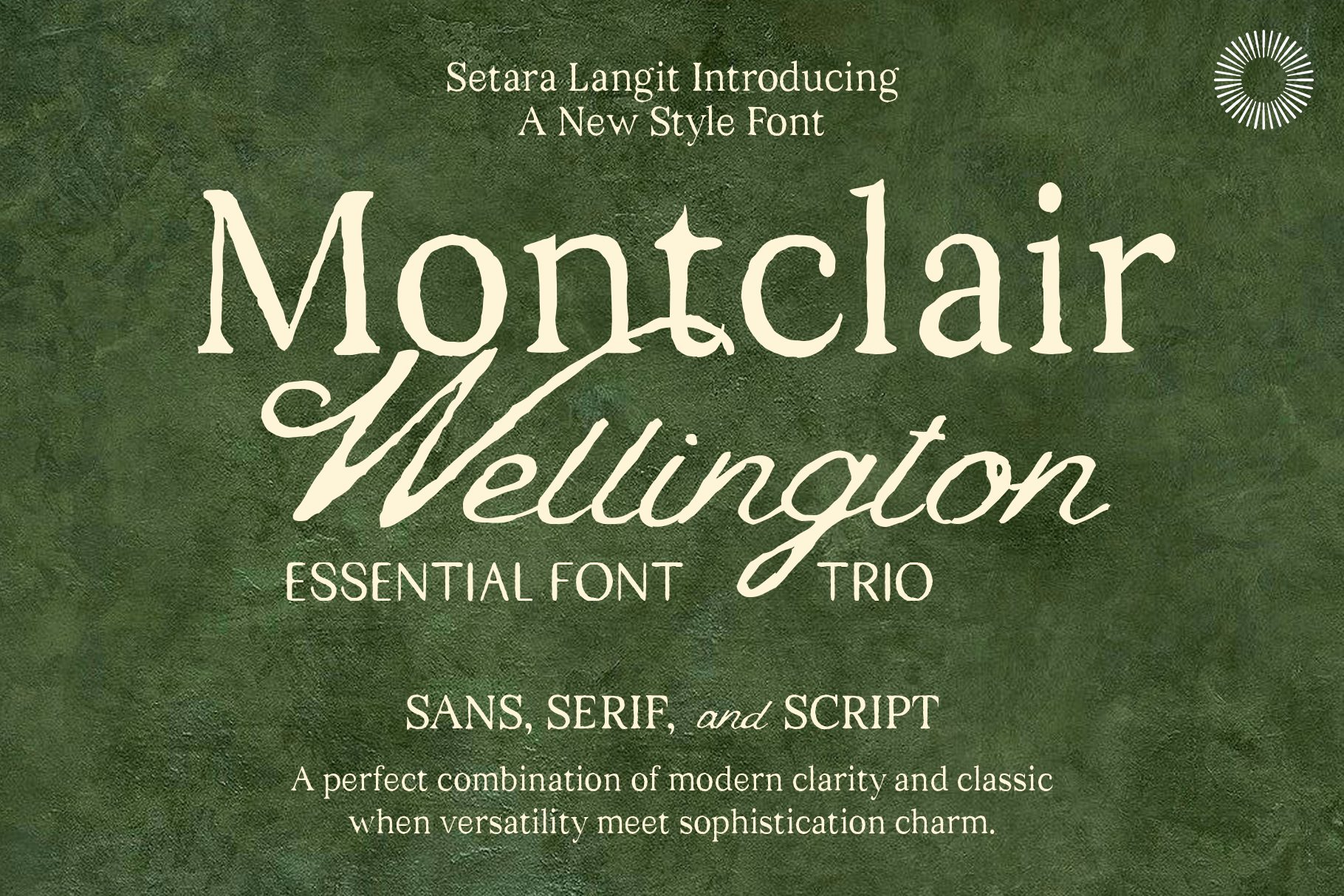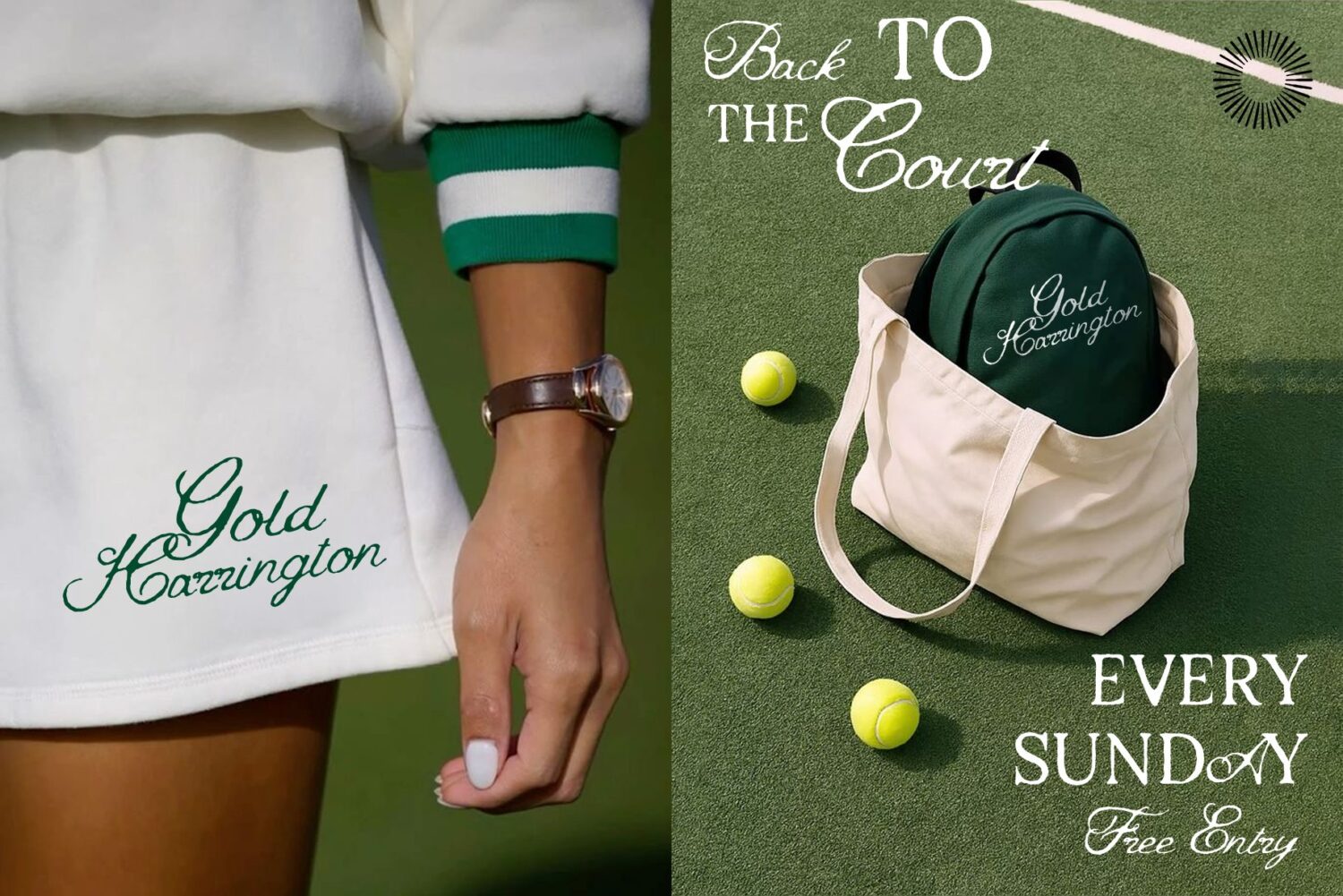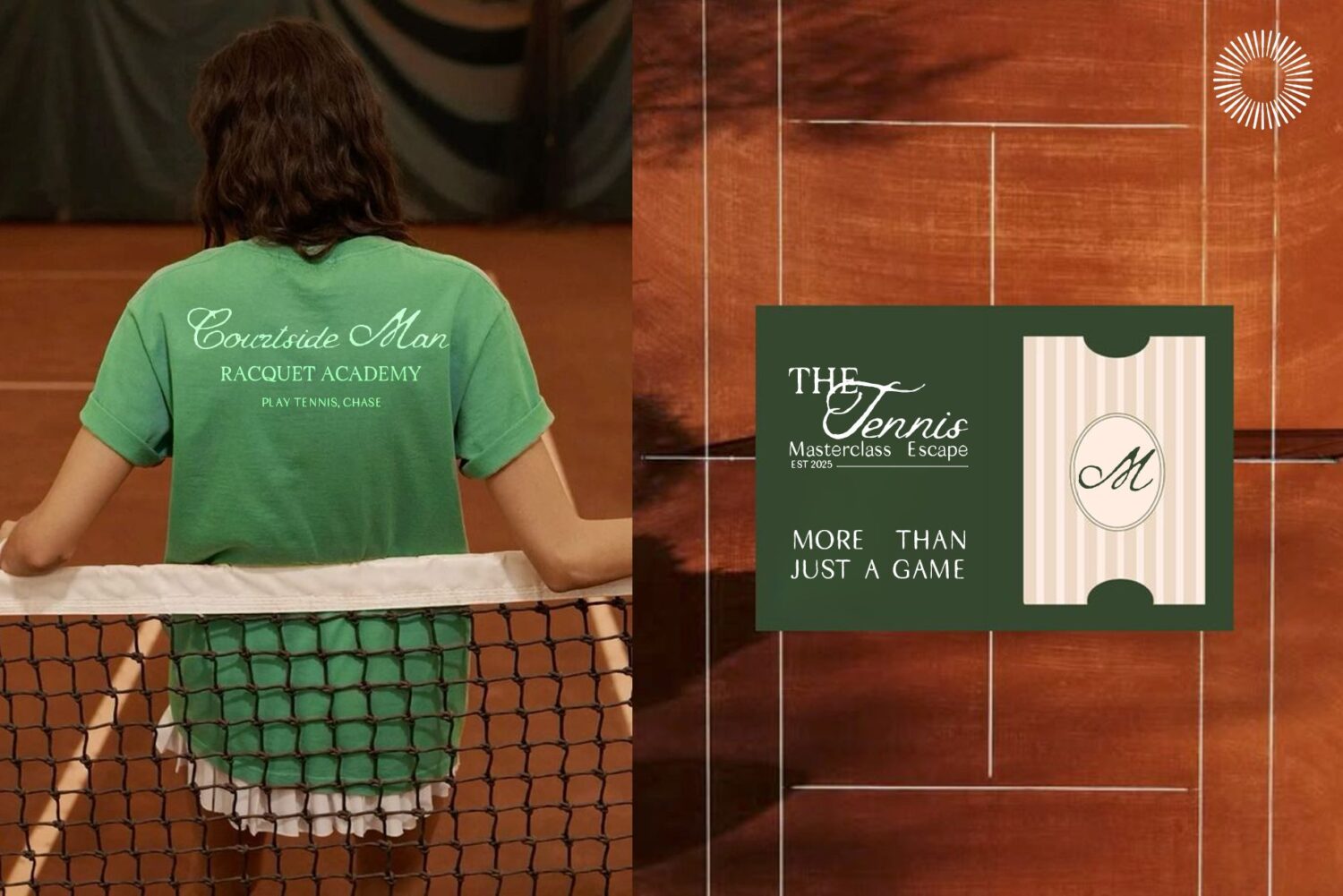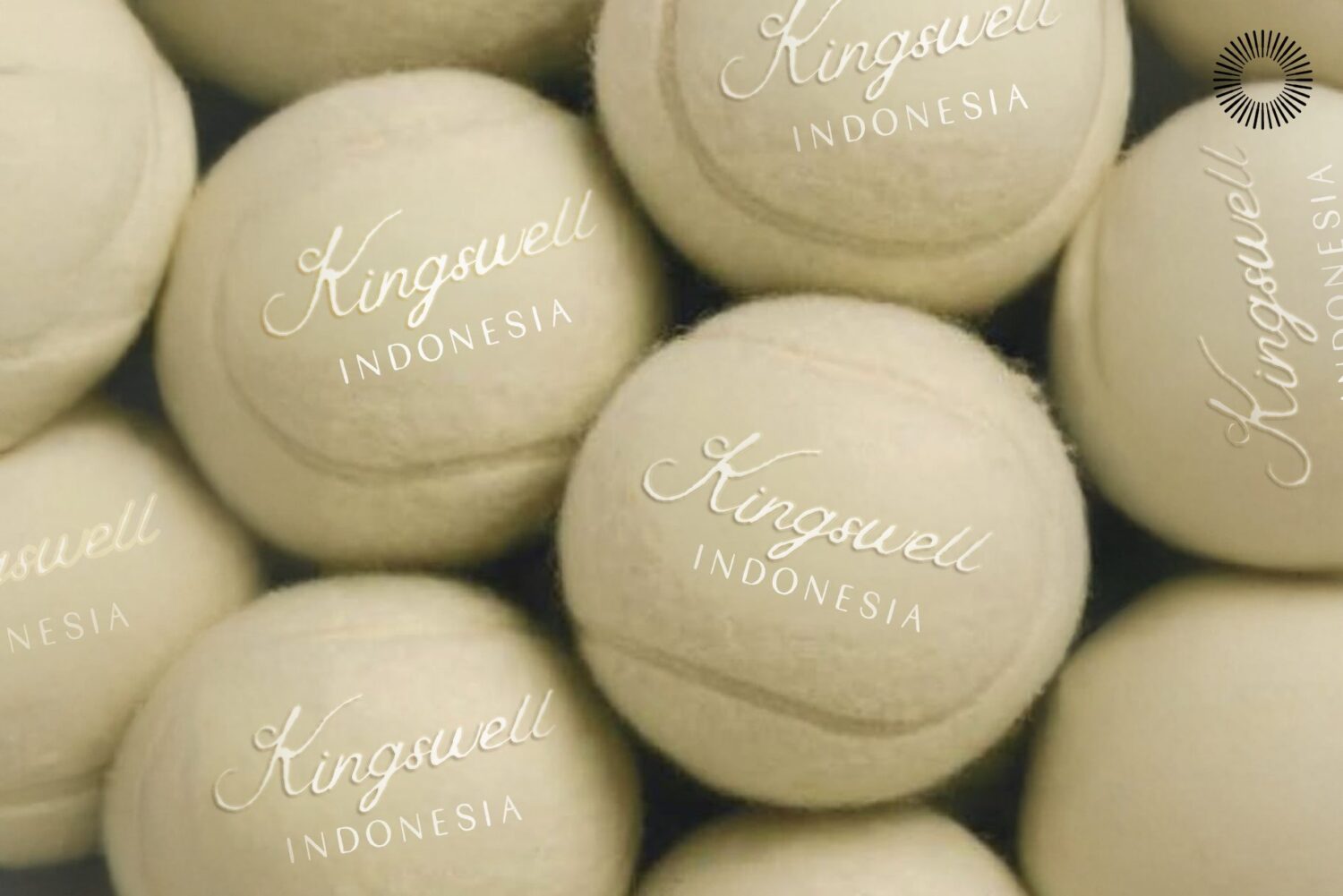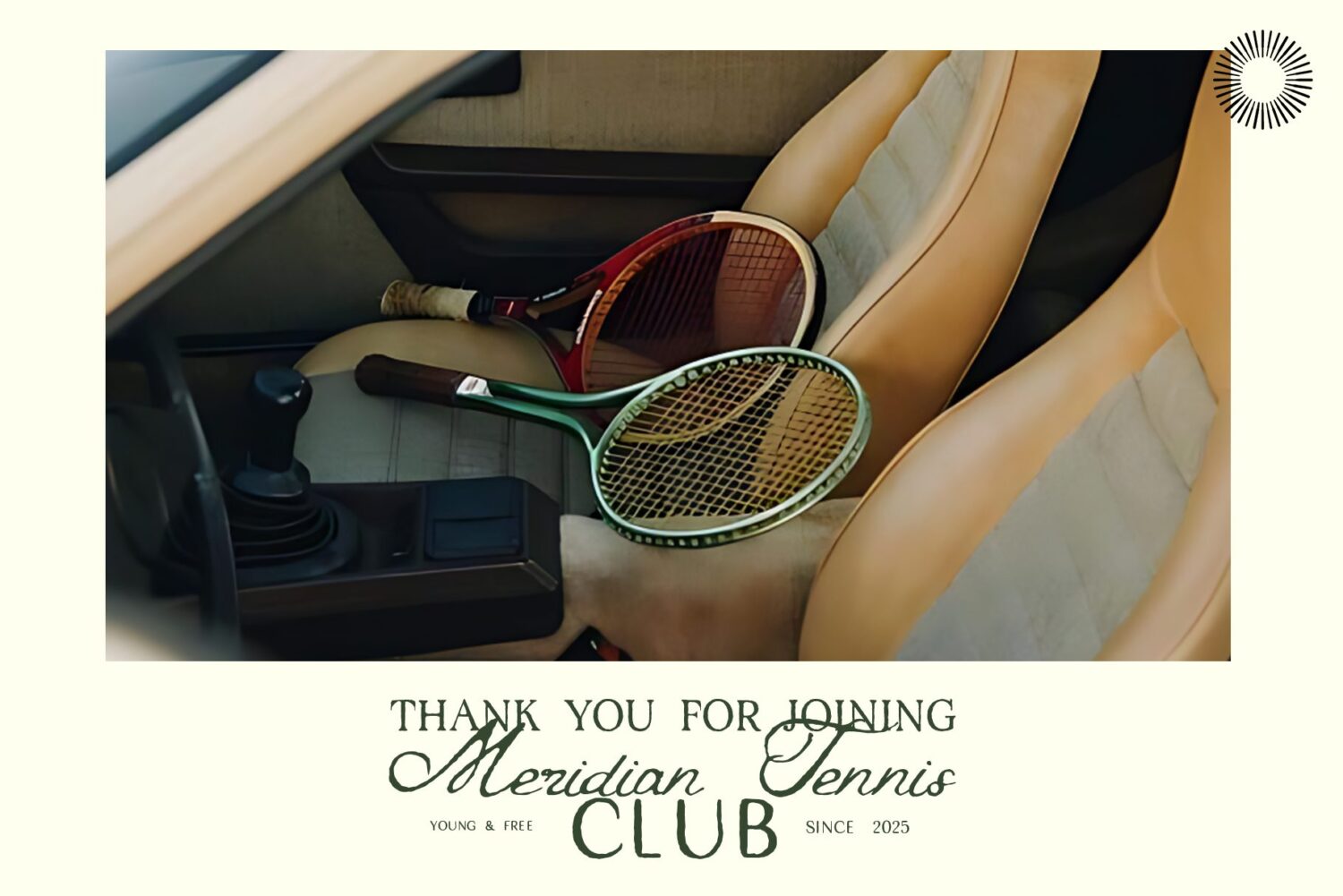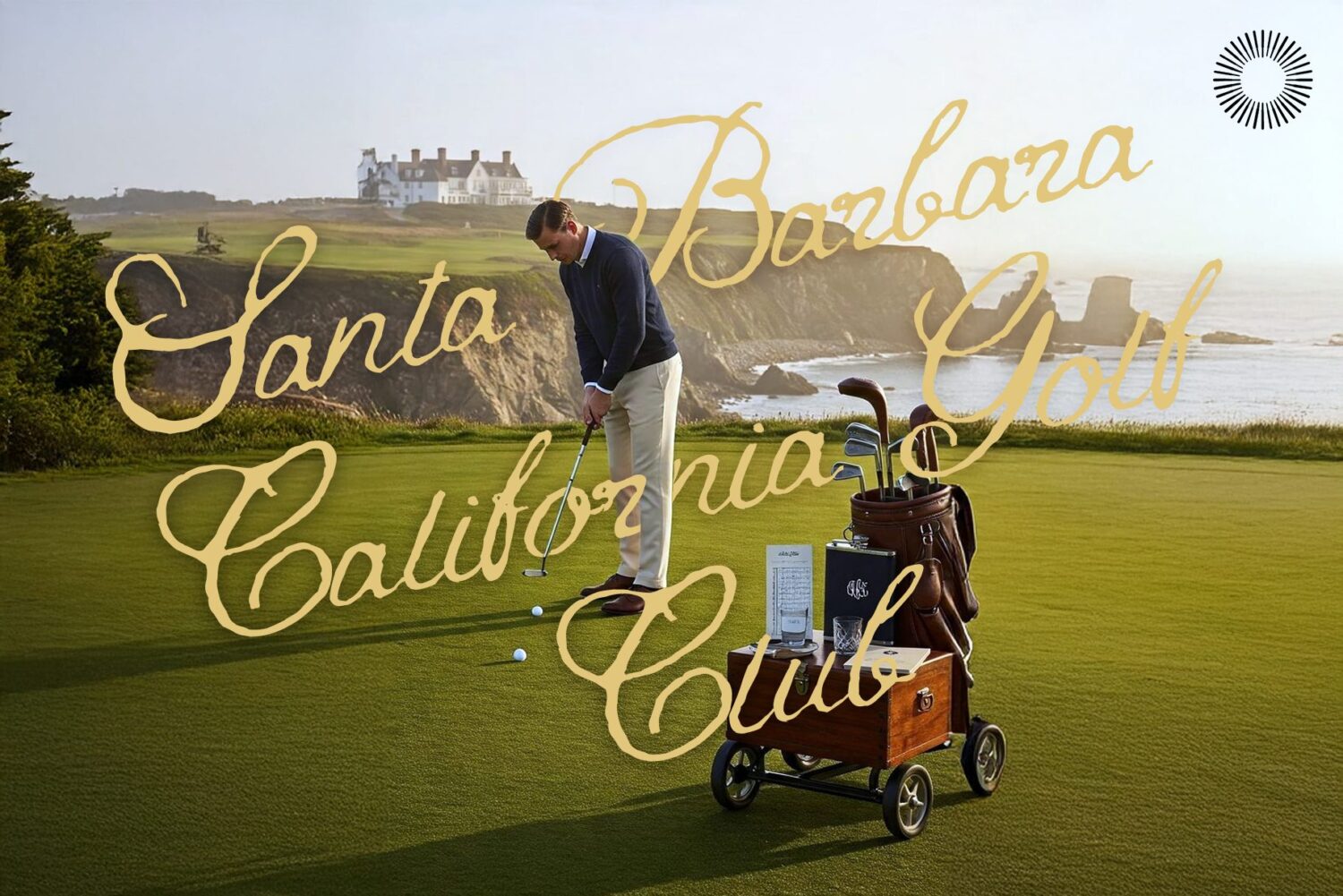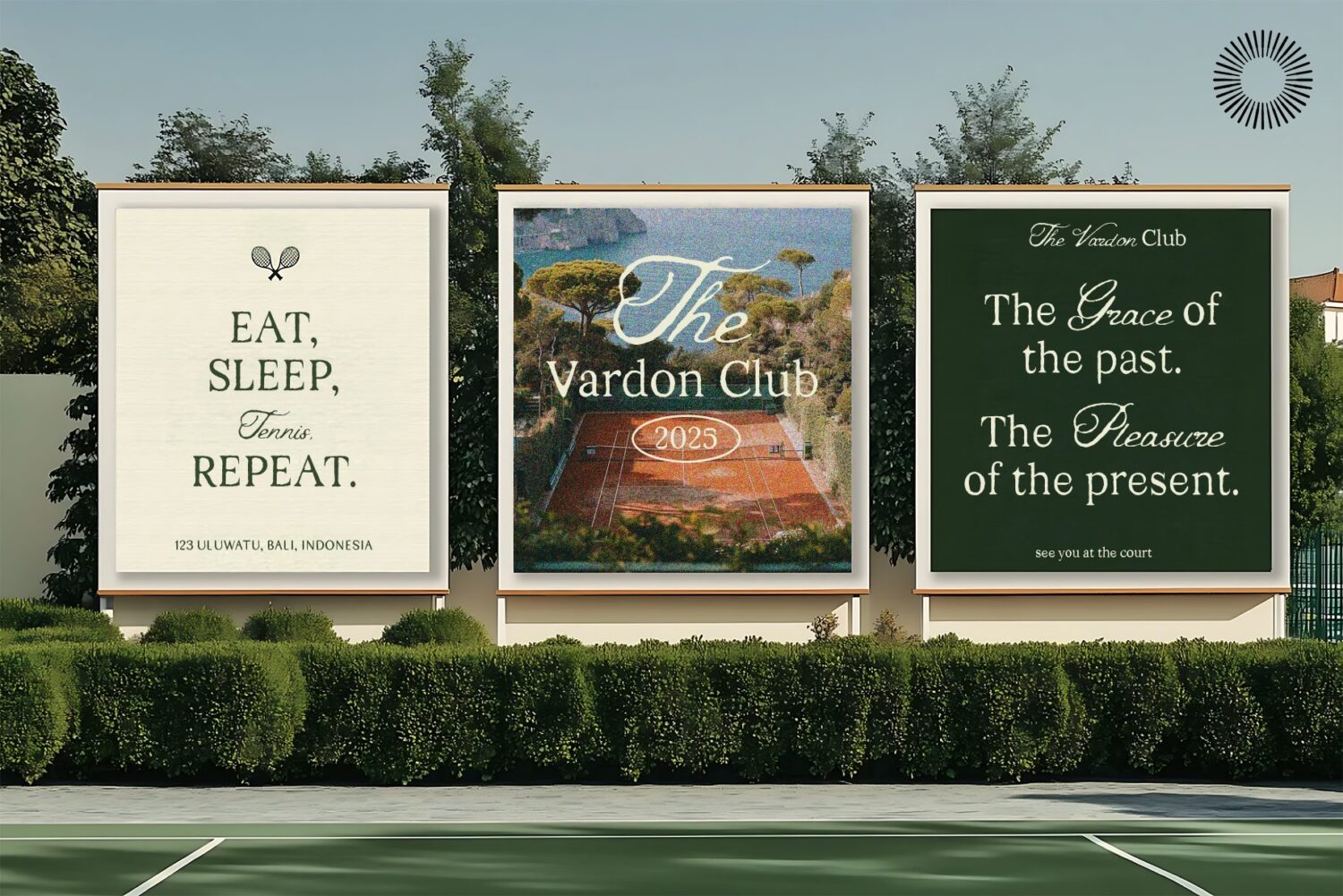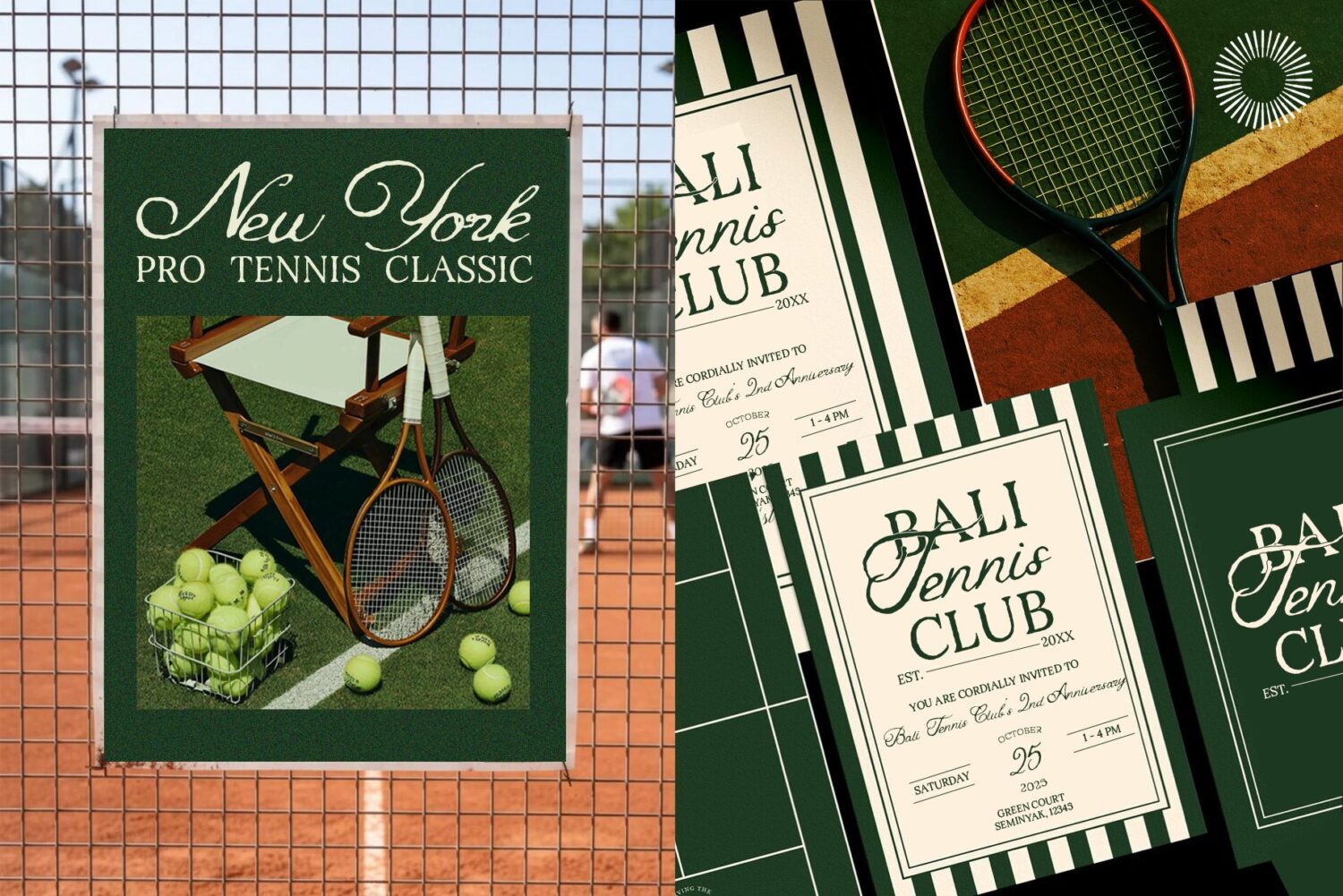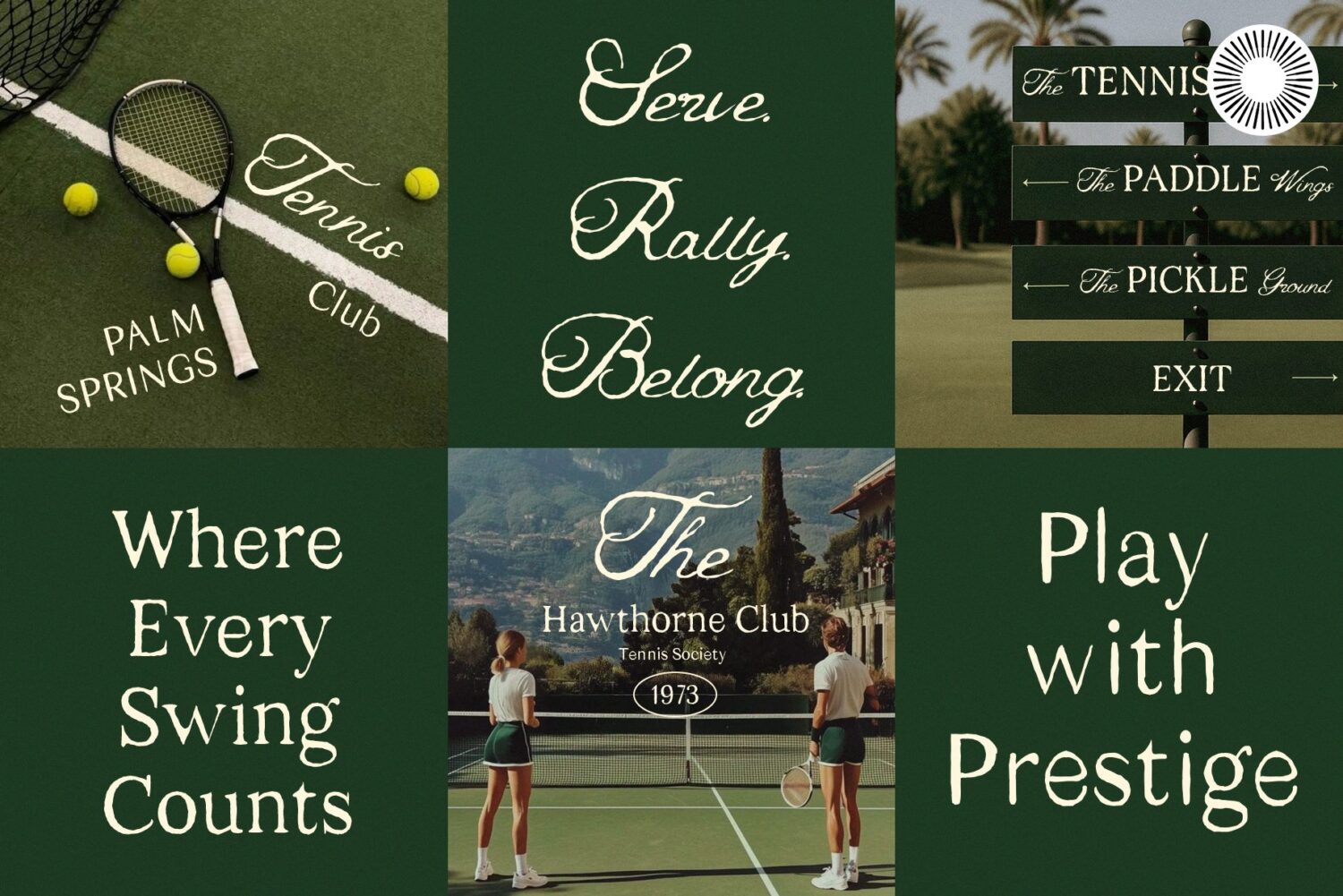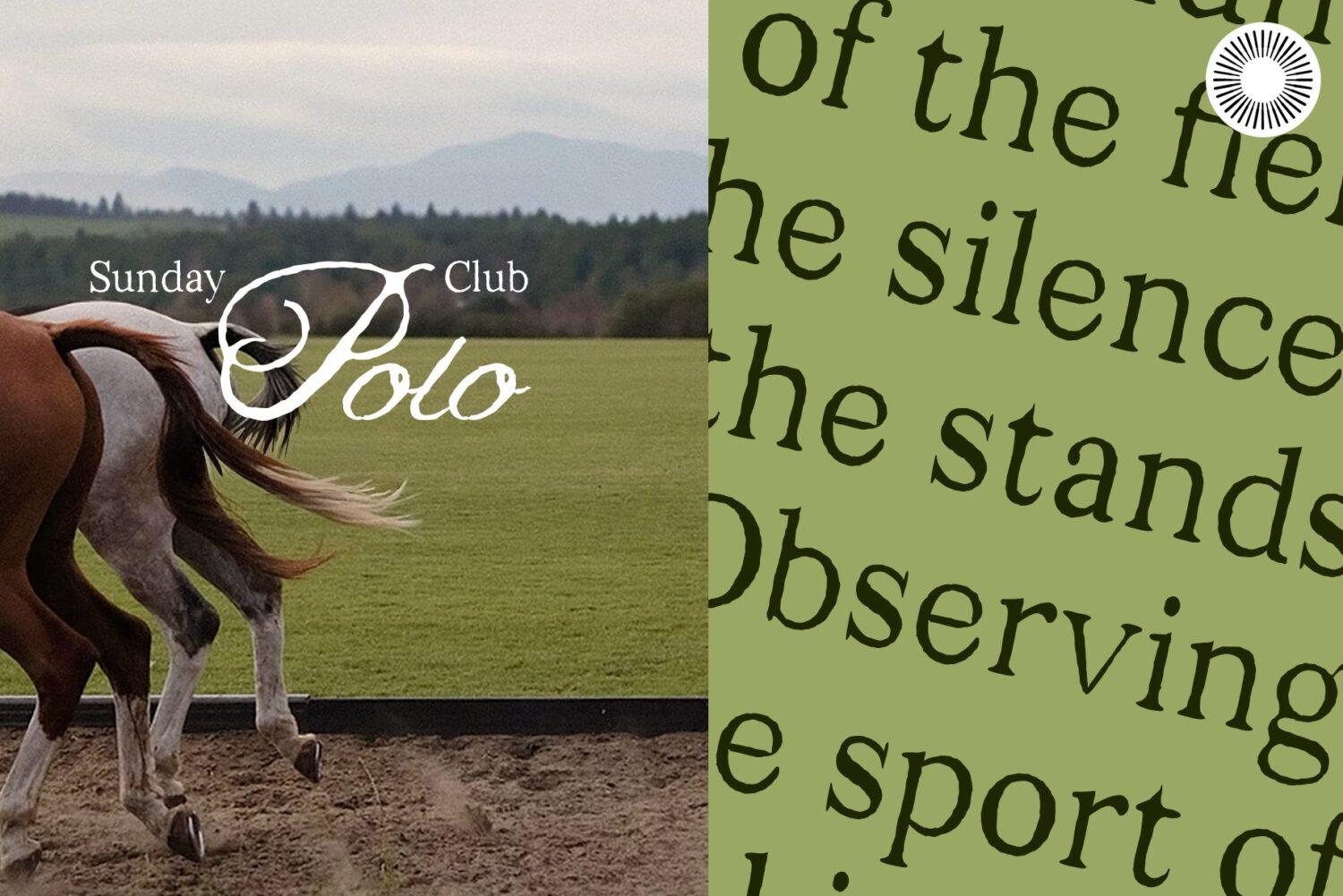
Montclair Wellington Sans
Montclair Wellington
Montclair Wellington Serif
Montclair – Essential Font Trio
Montclair Wellington – Essential Font Trio Serif • Sans • Script Montclair Wellington, a three-style font family designed to give you flexible, timeless typography without the visual clutter. This trio blends a textured classic serif, a clean modern sans, and an expressive handwritten script, each crafted to work beautifully on its own, yet even better together.
Why this Trio Works Many font bundles promise versatility, but often the styles feel mismatched. Montclair Wellington avoids that by keeping a consistent rhythm across all three fonts. The serif adds character, the sans keeps layouts grounded and readable, and the script brings warmth and human touch. Together, they create a balanced visual system suitable for both minimal and editorial-rich designs.
What You Get Montclair Wellington Serif A slightly rustic serif with softened edges—ideal for headlines, covers, brand names, and anything that needs a touch of heritage without feeling outdated. Montclair Wellington Sans A clean and understated sans with subtle personality. Works well for taglines, body text, menus, website layouts, and small print. Montclair Wellington Script A fluid, signature-style script with smooth strokes and an elegant handwritten feel. Perfect for logos, invitations, packaging, and accent phrases.
Best For
• Branding & Logo Suites
• Editorial layouts: magazines, lookbooks, and book covers
• Product packaging & labels
• Social media graphics
• Wedding & event stationery
• Website headings + body text pairings
• Posters, menus, and signage
Design Approach Montclair Wellington was designed with the idea that one type family should be able to carry a full visual identity, from bold headlines to delicate details. Instead of chasing trends, each style focuses on clarity, usability, and a quiet sophistication. The script gives personality, the serif gives presence, and the sans gives structure.
Features
• Multilingual support
• Smooth kerning
Why It Stands Out This trio isn’t about being overly ornate or aggressively modern. It’s for designers who want a classic look with just enough character to feel memorable. If you want a font family that can handle branding, packaging, and editorial work without switching styles constantly, Montclair Wellington delivers that consistency.
• Multilingual support
• Uppercase & lowercase
• Numerals & punctuation